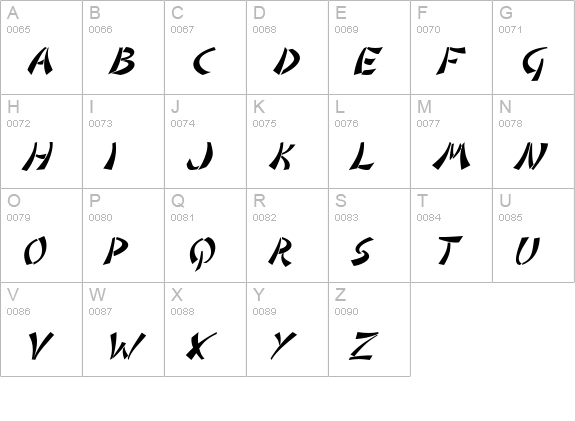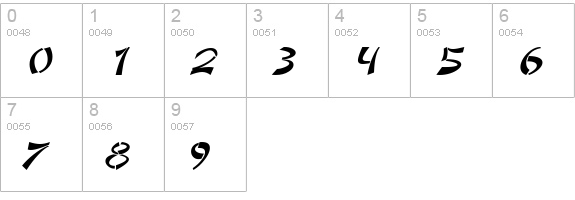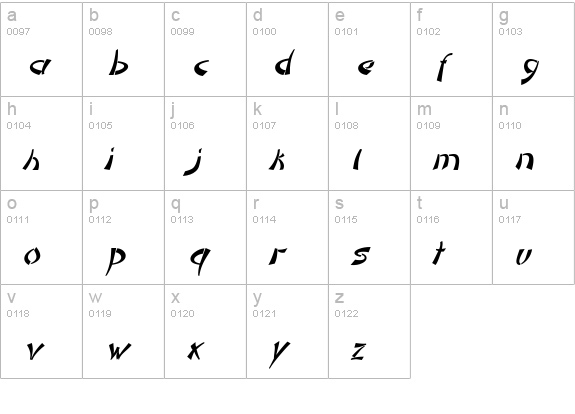
DomoAregato Italic Font Details
DomoAregato Italic is a distinctive, italic variant in the DomoAregato typeface family \xE2\x80\x94 well suited to design and typography projects.
DomoAregato Italic font is a sleek and modern typeface with a touch of elegance. Its stylish and sophisticated design adds a unique flair to any project, making it perfect for both professional and creative use. The italicized characters flow effortlessly, giving your text a dynamic and visually appealing look. This font is available for free download at FontsMarket.com, allowing you to easily access this eye-catching typeface for all your design needs. Whether you're working on a branding project, advertising materials, or personal projects, DomoAregato Italic font will elevate your work to the next level with its charm and versatility. Stand out from the crowd and make a statement with this attractive and freely available font.